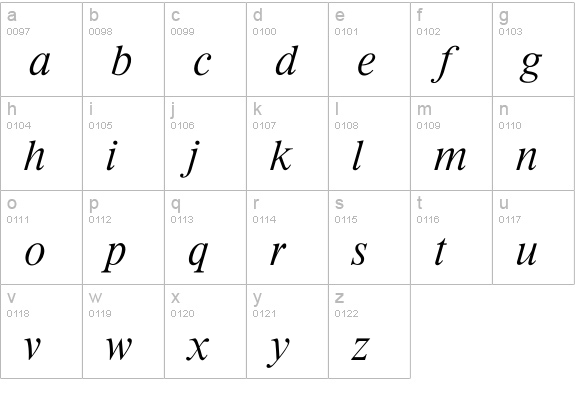
Introducing Iriccione Xlight, a stunning and versatile font that captivates with its delicate and elegant design. This font exudes a sense of sophistication and modernity, making it perfect for a wide range of creative projects. Iriccione Xlight boasts a harmonious blend of thin and refined strokes, creating a visually appealing balance that effortlessly catches the eye. Its slender and graceful letterforms create an ethereal and dreamy atmosphere, making it a great choice for wedding invitations, branding materials, fashion editorials, and any design that requires a touch of refined beauty. One of the most remarkable aspects of Iriccione Xlight is its versatility. This font seamlessly adapts to various design styles and works well in both bold and subtle settings. Its timeless appeal ensures that it remains relevant no matter the trend, while its clean and legible letterforms guarantee readability in any size or format. What makes Iriccione Xlight even more enticing is that it is available for free download at FontsMarket.com. Yes, you read that right! This exceptional font can be yours without spending a single penny. FontsMarket.com offers a vast collection of high-quality fonts, and Iriccione Xlight is just one of many gems waiting to be discovered. So why wait? Embrace the elegance and versatility of Iriccione Xlight and elevate your designs to new heights. Download this incredible font for free from FontsMarket.com and let your creativity soar.